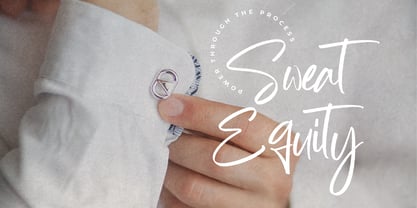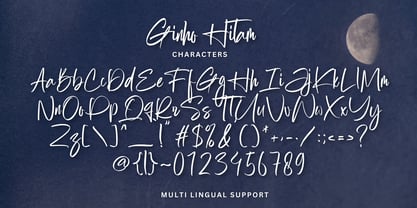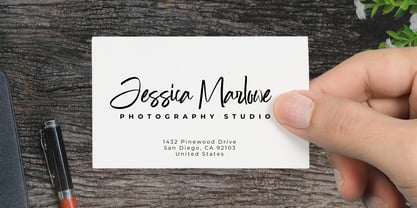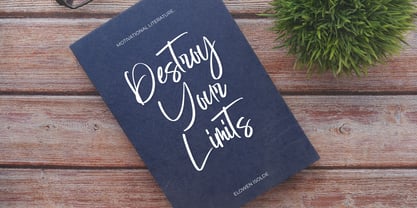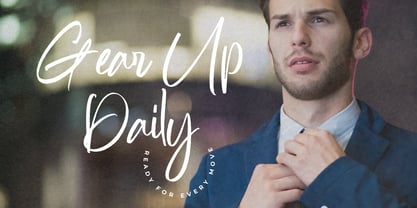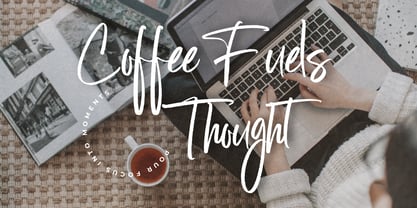
Ginho Hitam
by Gatype
The Ginho Hitam Font Family was designed by khaidir and published by Gatype. Ginho Hitam contains 1 styles. More about this family
Ginho Hitam – Where elegance meets ease. This modern handwritten script beautifully combines graceful strokes with a relaxed charm. Ideal for wedding stationery, logo designs, and lifestyle branding, it infuses a human touch that feels both intimate and refined. Every curve and connection is meticulously crafted to ensure flow, warmth, and personality in any project, making it perfect for branding, invitations, and personalized communications. Let Ginho Hitam elevate your designs with its unique blend of sophistication and approachability, ensuring your message resonates with authenticity and style.
Designers: khaidir
Foundry: Gatype